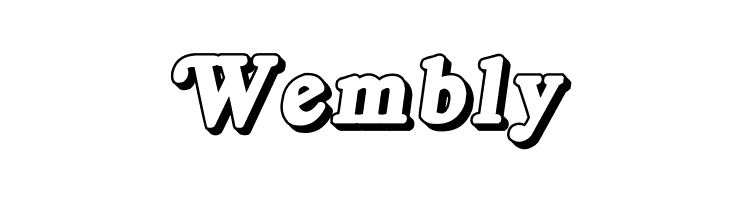
SO THIS IS IT-Hollow-Inverse Font
- Font: SO THIS IS IT-Hollow-Inverse
( Fonts by Dennis Ludlow - Sharkshock )
A bold, decorative font with vintage flair and modern elegance.